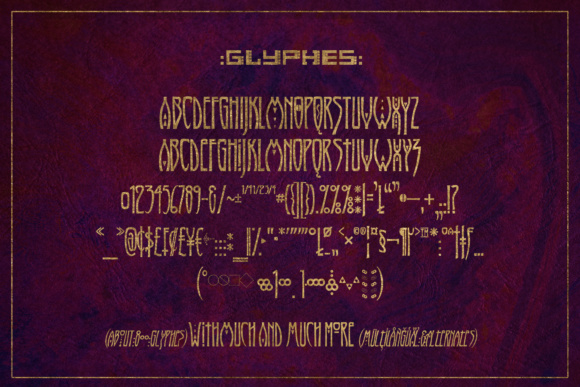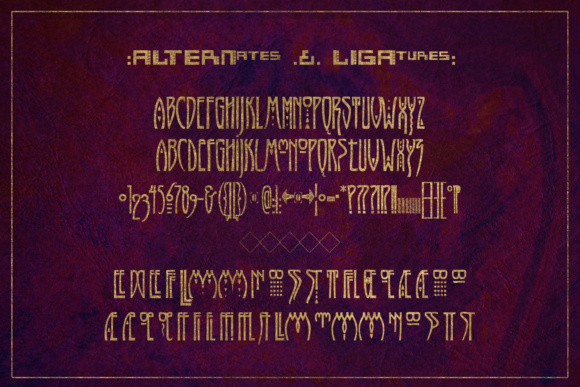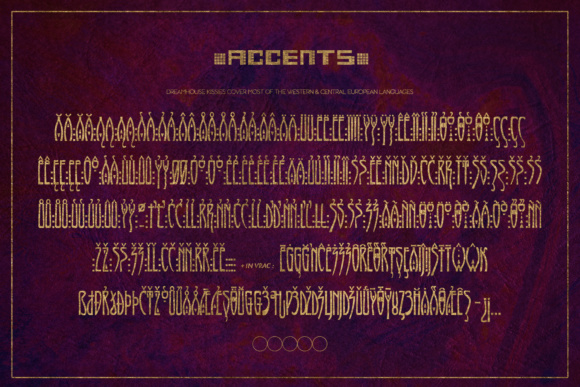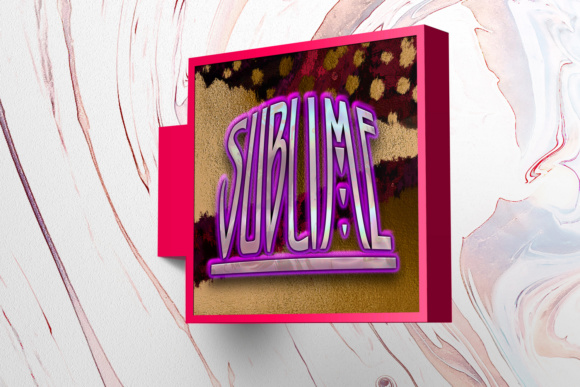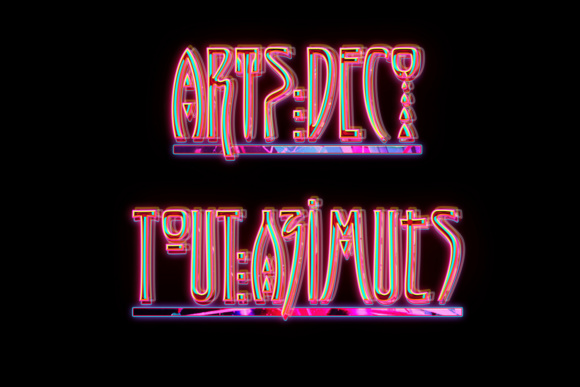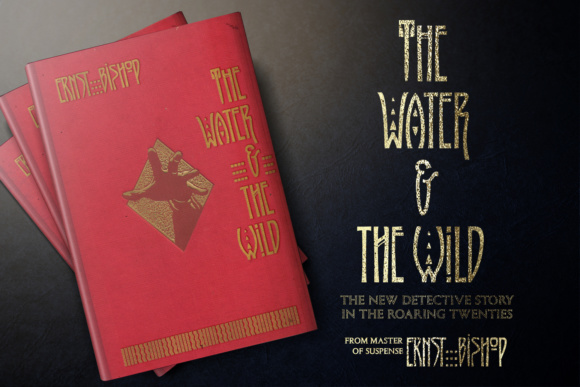
Dreamhouse Kissies Font: A Retro-Inspired Decorative Display Font
Are you a designer or crafter looking for a unique and eye-catching font to elevate your creative projects? Look no further than the Dreamhouse Kissies font, a gorgeous and crafty decorative display font inspired by the iconic lettering of 80’s cover sleeves. In this article, we’ll dive into the features and benefits of this stunning font, and explore how it can add a touch of retro flair to your designs.
A Blast from the Past: 80’s Inspiration
The Dreamhouse Kissies font is a loving tribute to the bold, colorful, and playful lettering that defined 80’s cover sleeves. From vinyl records to cassette tapes, the fonts of the 80’s were often oversized, ornate, and full of personality. The Dreamhouse Kissies font captures the essence of this retro aesthetic, with its chunky lines, curvaceous shapes, and whimsical flair.
A Font that’s Full of Character
One of the standout features of the Dreamhouse Kissies font is its extensive library of alternate glyphs and ligatures. With a vast array of swappable characters, you can create unique and jaw-dropping designs that are sure to turn heads. Whether you’re looking to add a touch of elegance or a dash of playfulness, this font has the flexibility to adapt to your creative vision.
The Dreamhouse Kissies font is a versatile tool that’s perfect for a wide range of creative projects. Whether you’re a designer working on a branding campaign, a crafter creating handmade cards or gift tags, or a DIY enthusiast looking for a unique font for your next project, this font has got you covered.
Key Features of Dreamhouse Kissies Font
- Inspired by 80’s cover sleeve lettering
- Gorgeous, crafty decorative display font
- Large library of alternate glyphs and ligatures
- Perfect for creating unique and eye-catching designs
- Suitable for a wide range of creative projects, from branding to crafting
Tips for Using Dreamhouse Kissies Font
To get the most out of the Dreamhouse Kissies font, here are a few tips to keep in mind:
- Experiment with different glyphs and ligatures to create unique combinations
- Pair the font with bold colors and graphics for a bold, eye-catching look
- Use the font to add a touch of personality to your designs, whether it’s a playful logo or a heartfelt handmade card
In conclusion, the Dreamhouse Kissies font is a must-have for designers and crafters looking to add a touch of retro flair to their creative projects. With its gorgeous, crafty design and extensive library of alternate glyphs and ligatures, this font is sure to inspire and delight. Whether you’re working on a branding campaign or a handmade craft project, the Dreamhouse Kissies font is the perfect choice for anyone looking to create unique and eye-catching designs.